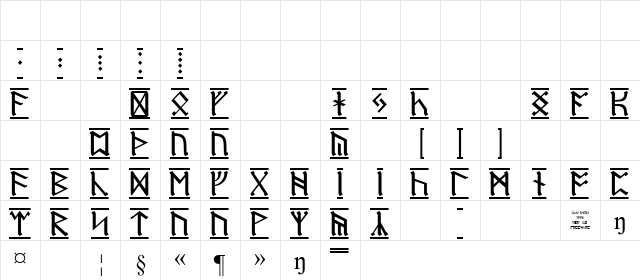
Dwarf Runes-1 Regular
Design Context for Dwarf Runes-1 Typeface
Dwarf Runes-1 is a composed and adaptable typeface that performs quietly and consistently across a wide range of design contexts.